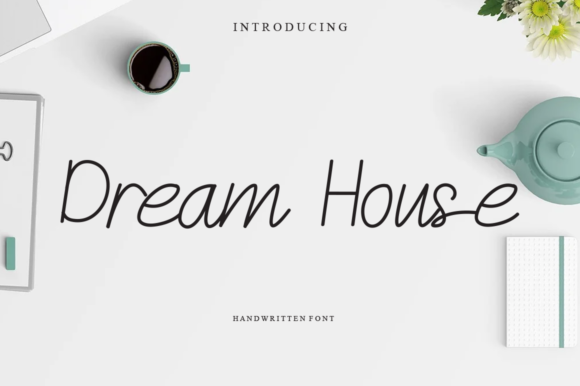
Introducing Dream House Font: A Magical Journey into the World of Elegance
In the realm of typography, where letters dance with grace, Dream House Font emerges as a captivating script font, effortlessly combining elegance and charm. Crafted with meticulous care by A2-lucky, this font is not just a collection of characters; it's an artistic expression, a story waiting to be told.
Step into a world where your words transform into captivating works of art, where your designs radiate with a touch of magic. Whether you're creating heartfelt business memos, designing enchanting logos, or crafting personalized invitations, Dream House Font is your muse, your faithful companion in the realm of creativity.
With its enchanting curves and flowing lines, Dream House Font adds a touch of sophistication to your projects, turning them into visual masterpieces. Its versatility knows no bounds, adapting seamlessly to a myriad of design aesthetics, from classic and timeless to modern and whimsical. Whether you're a seasoned designer or a passionate hobbyist, this font will ignite your imagination and inspire you to create beyond the ordinary.
So, embark on this magical journey with Dream House Font. Let your creativity soar, let your words dance with grace, and let your designs captivate the hearts of all who lay eyes upon them. Embrace the elegance, embrace the charm, and let Dream House Font transform your creative vision into a reality.